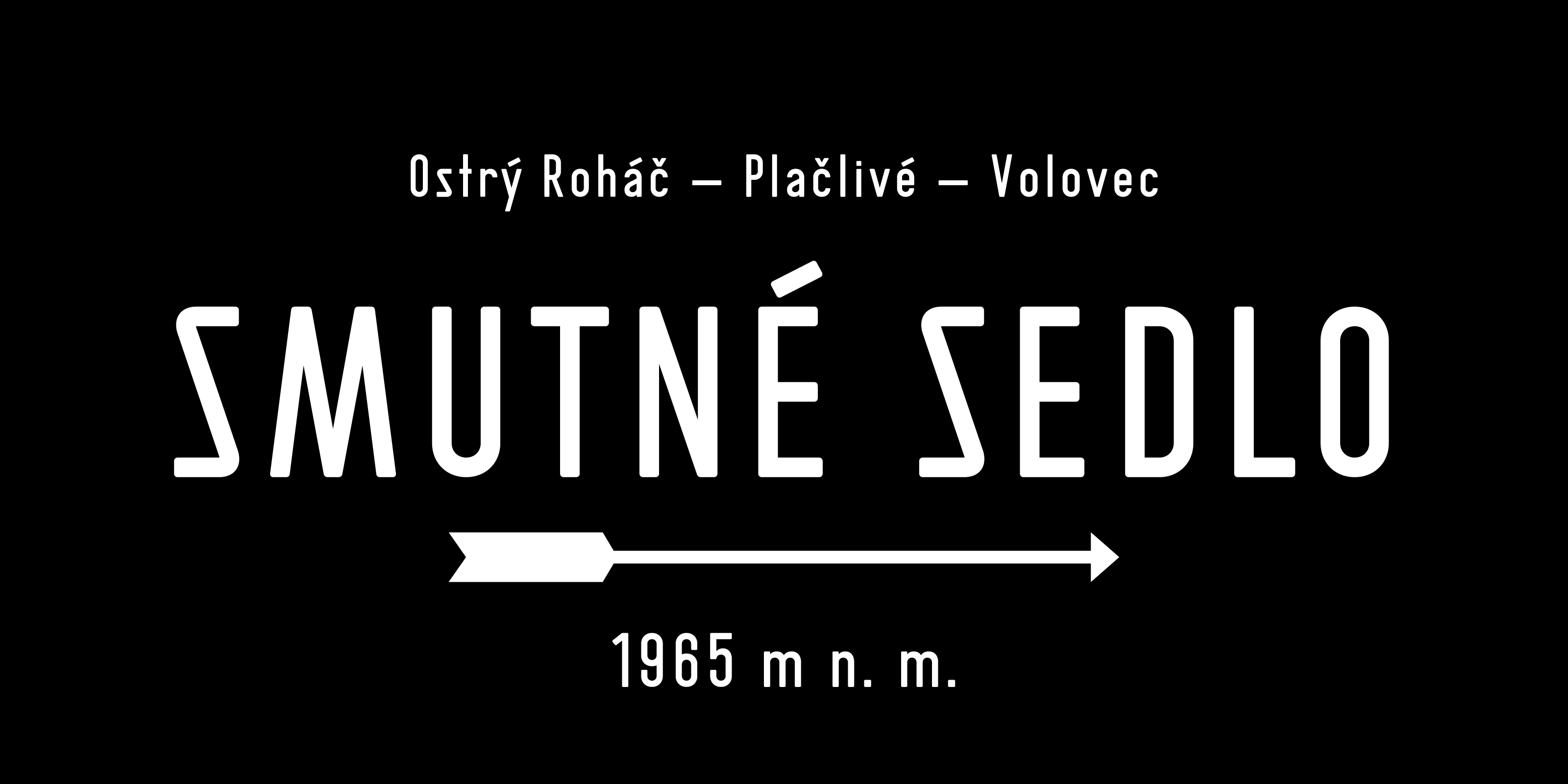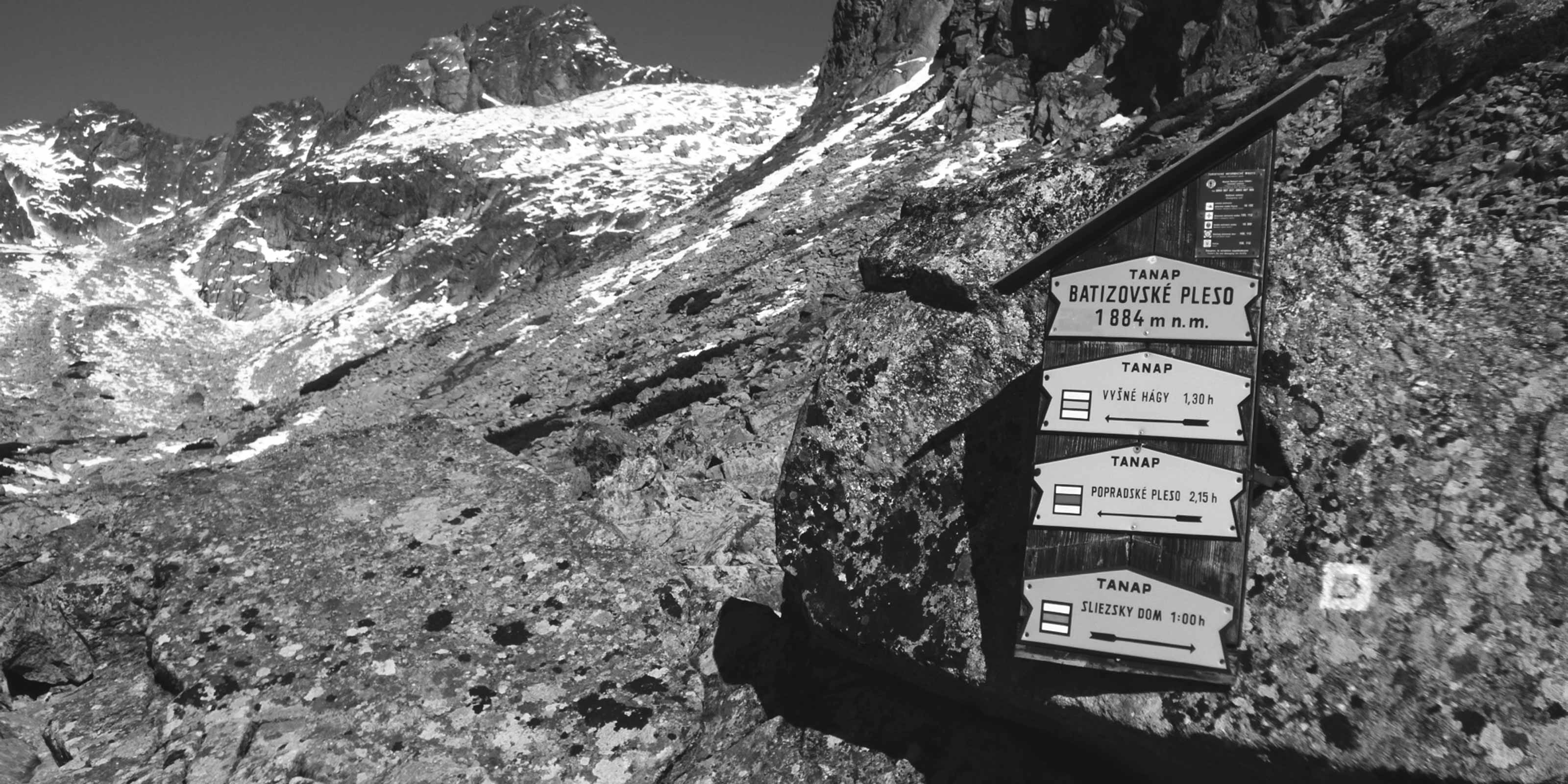
- Manual Tatry
Handpainted typeface from guideposts in High Tatras National Park.
Manual Tatry is a utilitarian geometric sans-serif typeface with soft terminals primarily intended for display use consisting of 1 style, with no contrast, narrow width, and large x-height.
Manual Tatry supports Basic Latin and Extended Latin and covers over 100 languages. With total of 390 glyphs, it includes the default set of proportional lining figures. Additional features like stylistic set 1, discretionary ligatures, case sensitive forms, and ordinals allow for further customization and versatility.
Manual Tatry typeface is a digitization of the yellow handpainted guideposts found in High Tatras National Park in Slovakia.
Although the typeface was used almost exclusively in upper-case, its digital version is complete with full set of lower-case letters, special glyphs and symbols.